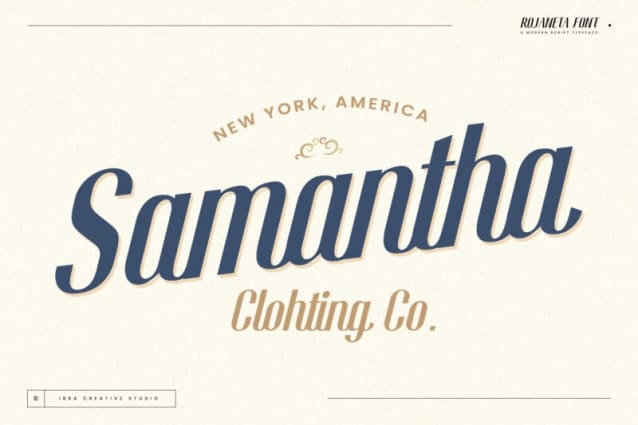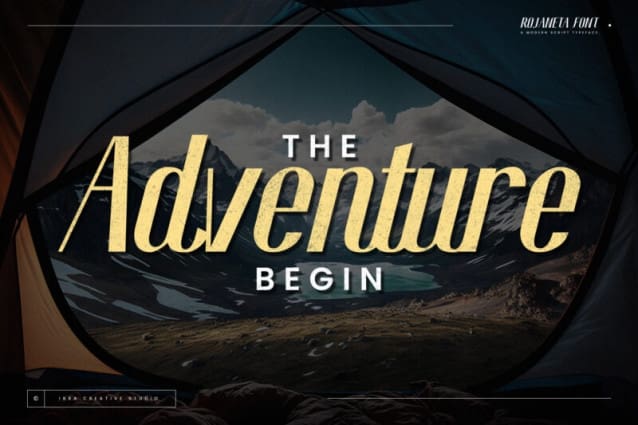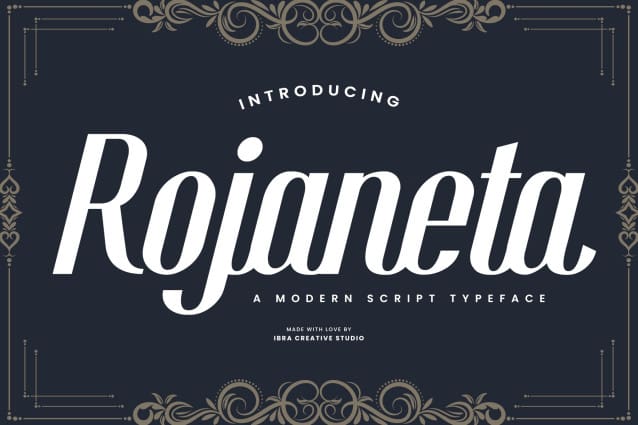
Rojaneta Font
Rojaneta Font is a contemporary script typeface that seamlessly blends elegance with a modern aesthetic. Its graceful, flowing letterforms exude a sense of sophistication, making it an ideal choice for a wide range of design applications. The typeface strikes a balance between traditional calligraphic elements and a sleek, streamlined design, resulting in a versatile and timeless script. Rojaneta’s fluid strokes and well-balanced proportions contribute to its readability, making it suitable for both display and body text. With a dynamic energy and a touch of flair, Rojaneta adds a touch of contemporary charm to any project, making it a standout choice for those seeking a modern script typeface with a classic twist.